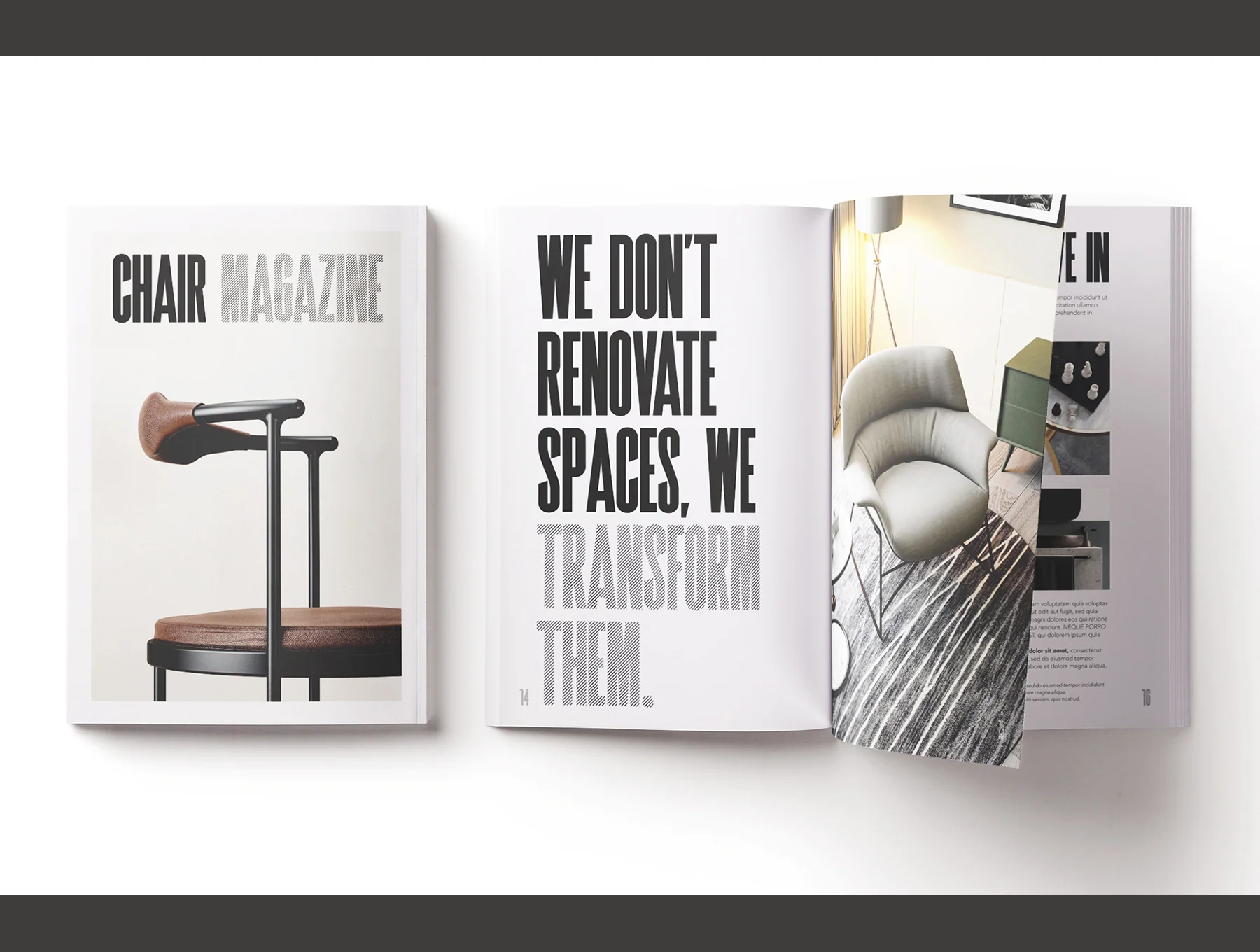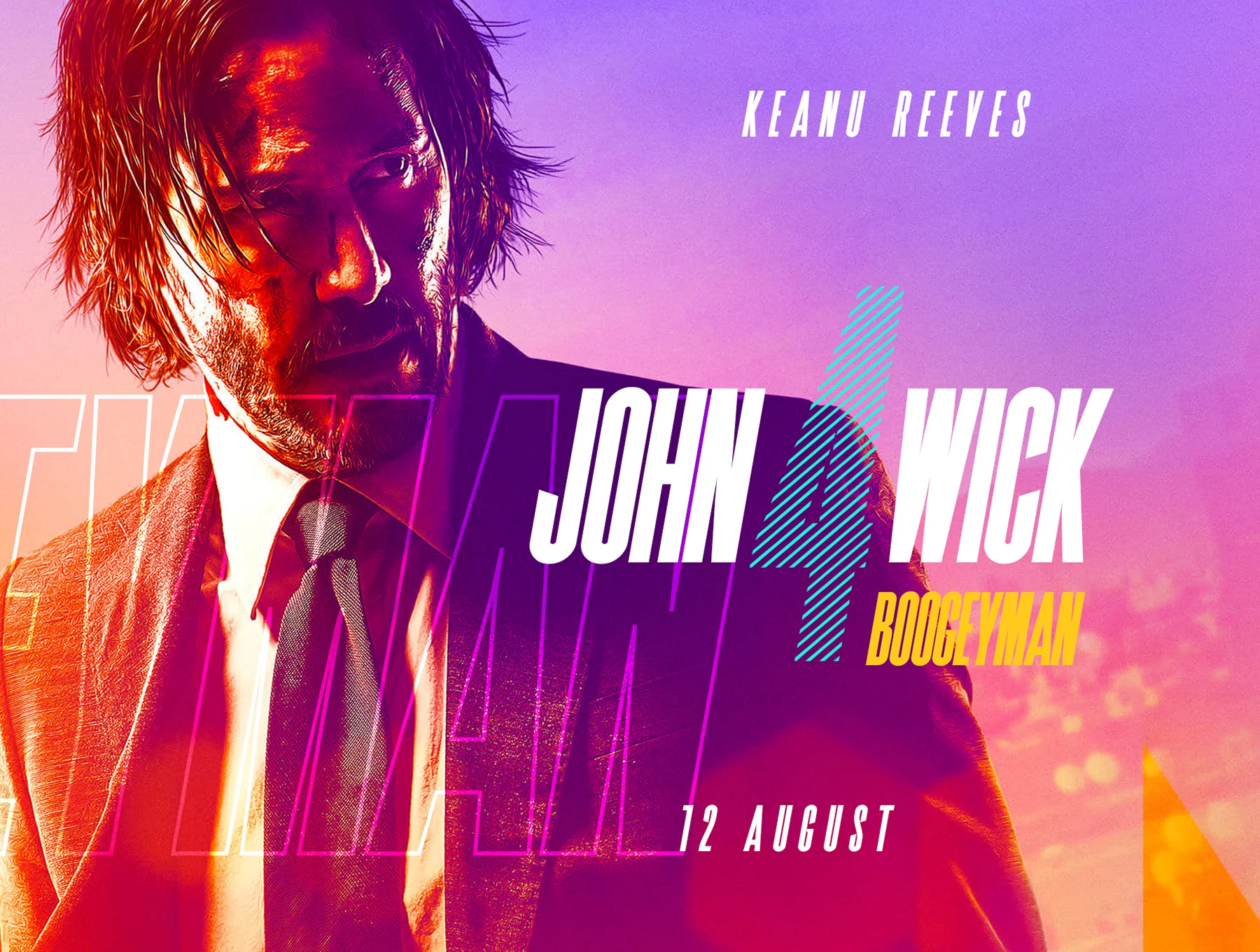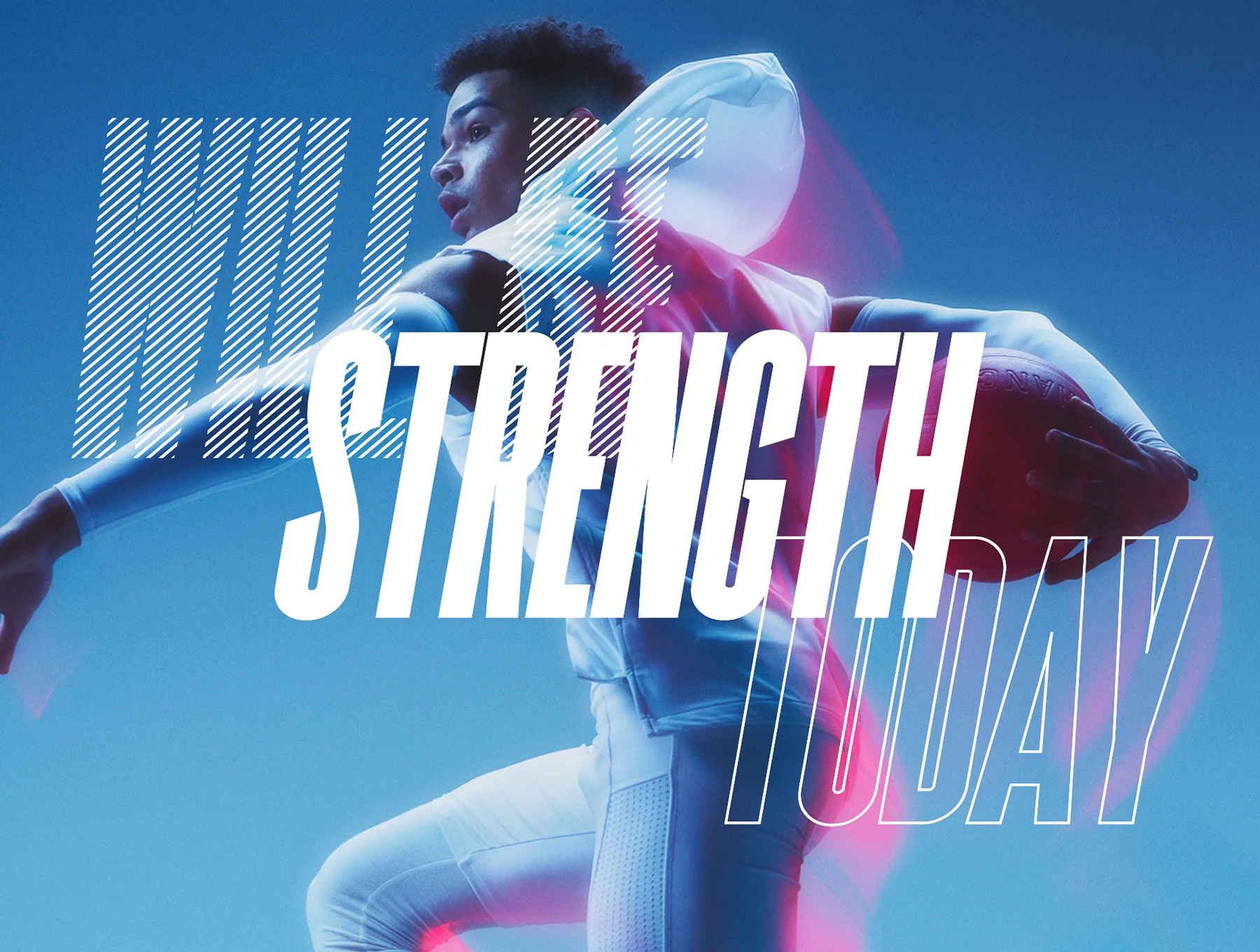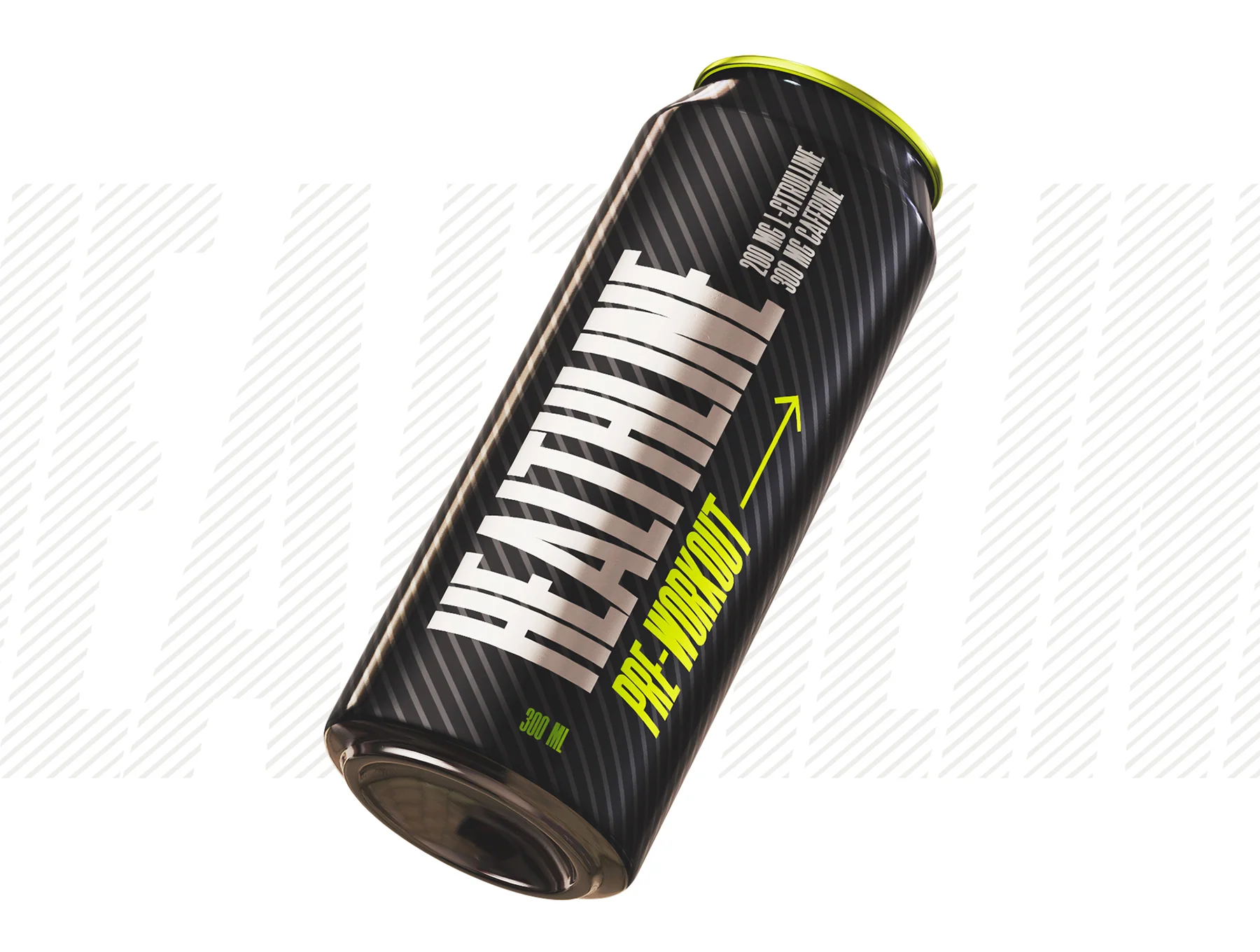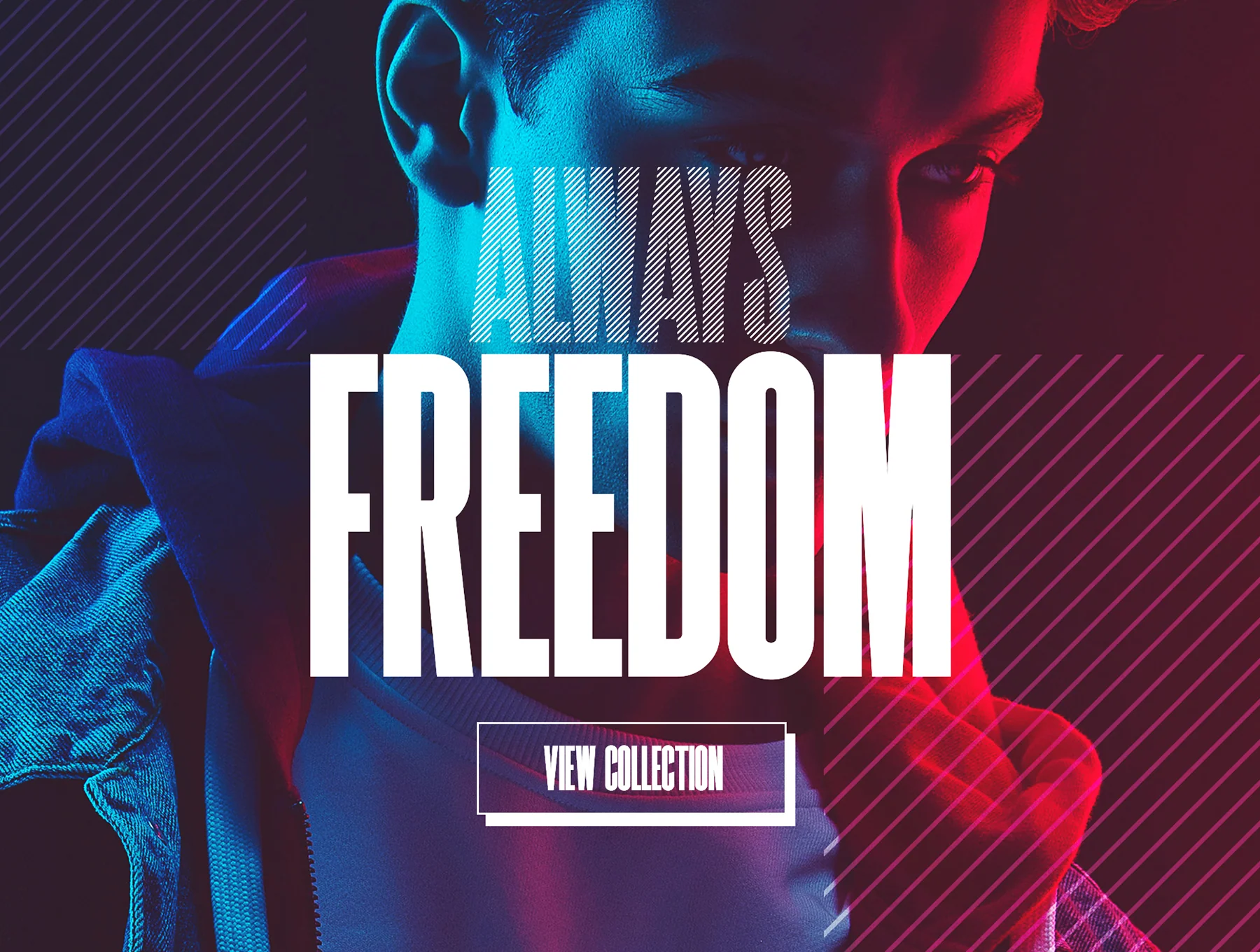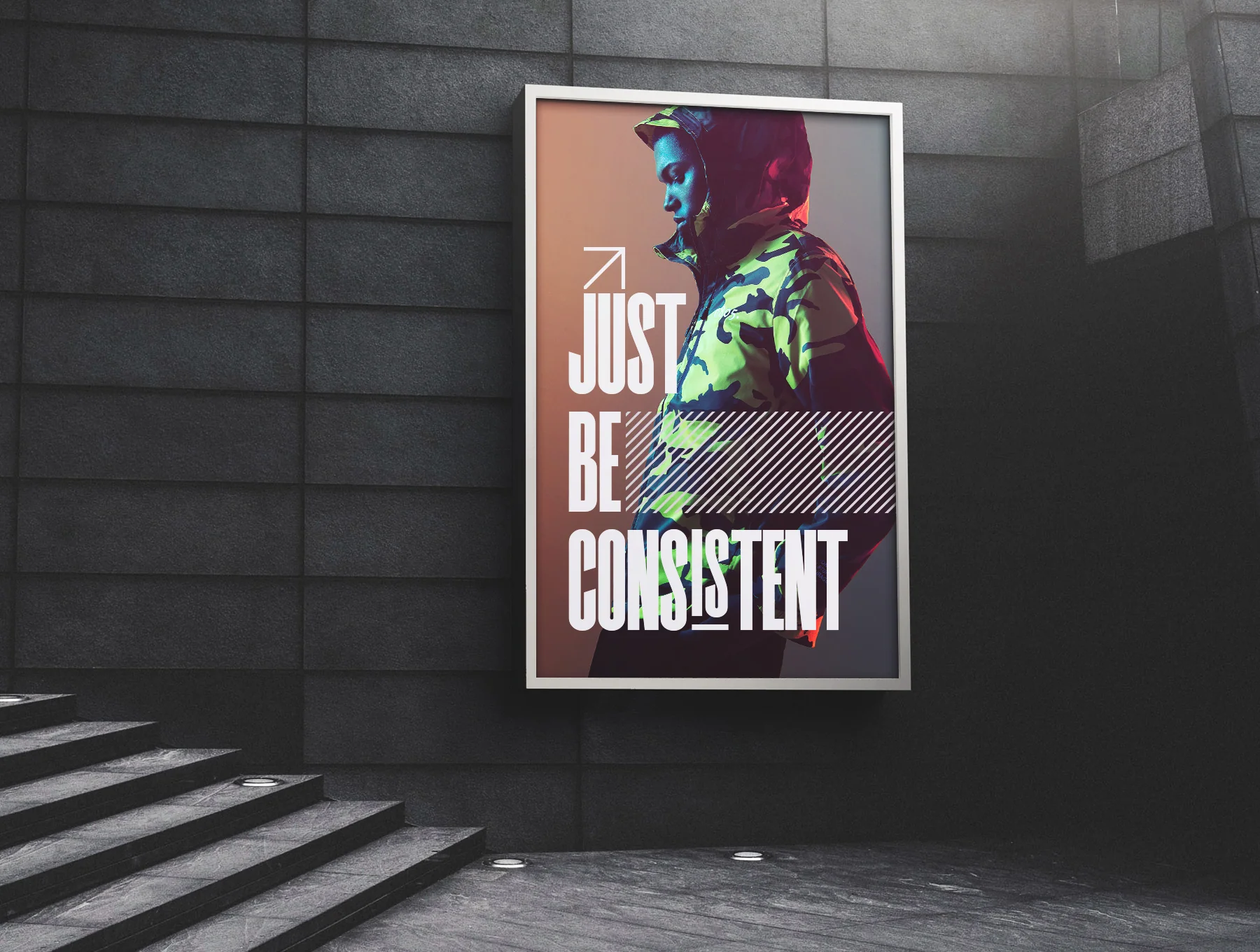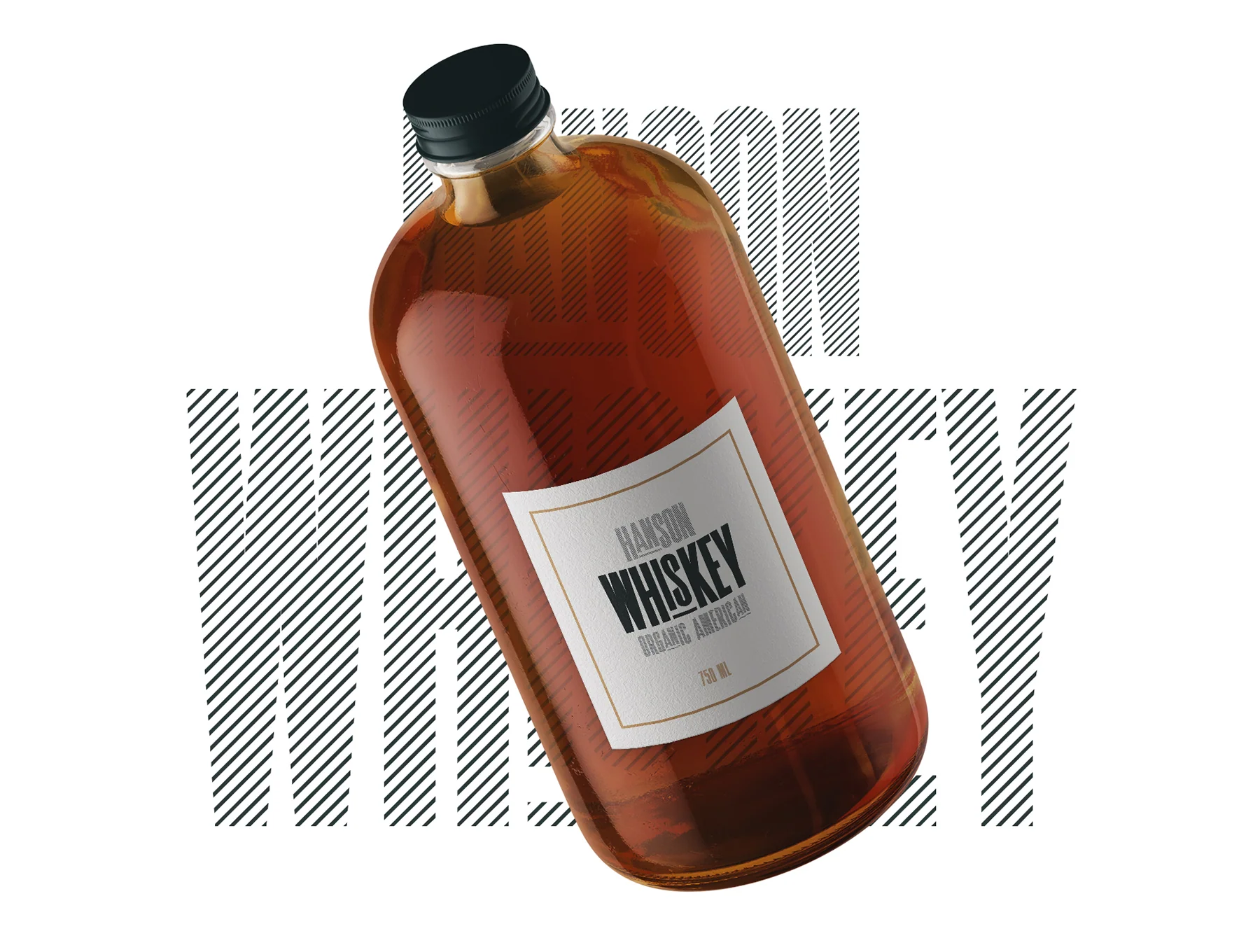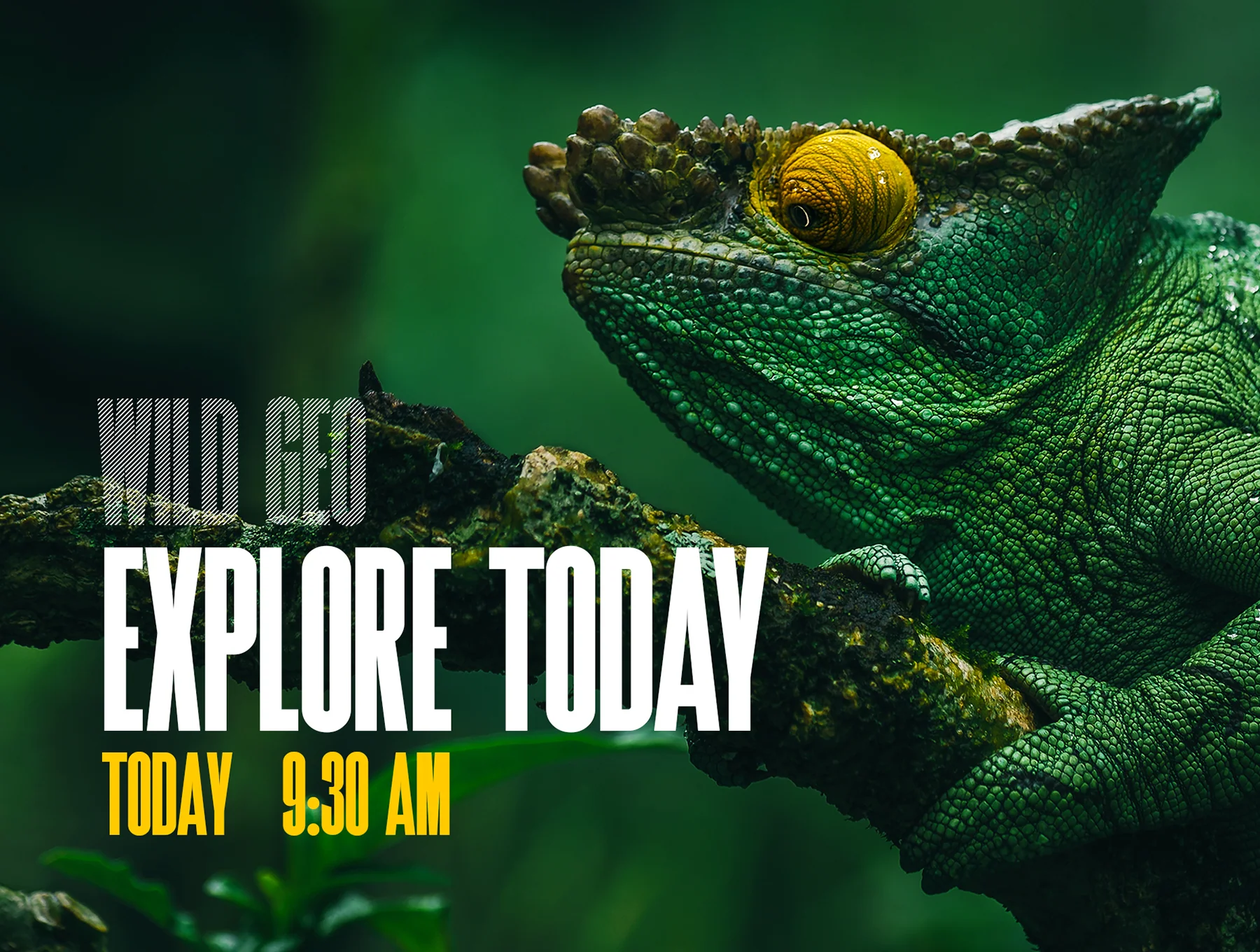
SuperLine Display Typeface
SuperLine Typeface: a bold contemporary display font with three distinct styles.
Carefully crafted
Full-capital lettering
Available in Regular, Lined, and Outlined styles
Supports a wide variety of looks
SuperLine Typeface is a bold contemporary all-caps display font with three versions: regular, lined, and outline. Built for large-scale use, it suits branding, standout posters, websites, and apps. Matching extension background shapes are included in AI and EPS vector formats for masks, overlays, or solid color fills.